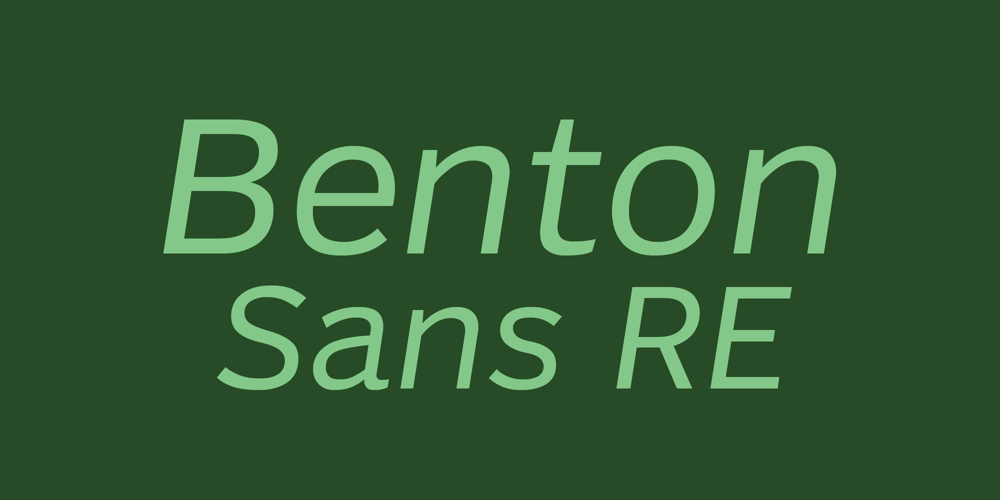
Benton Sans RE Font Family was designed by David Berlow, Tobias Frere-Jones, Cyrus Highsmith, Morris Fuller Benton and published by Font Bureau. Benton Sans RE contains 4 styles and family package options. A redesign of drawings of News Gothic from the Smithsonian, Cyrus Highsmith and the Font Bureau studio created Benton Sans, one the most popular and versatile families in this genre. This version of the family is part of the Reading Edge series of fonts specifically designed for small text onscreen, having been adjusted to provide more generous proportions and roomier spacing, and having been hinted in TrueType for optimal rendering in low resolution environments.